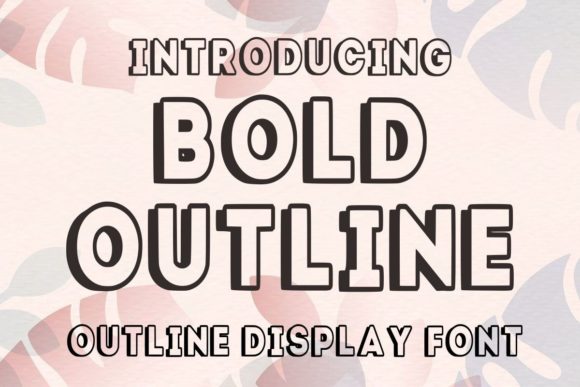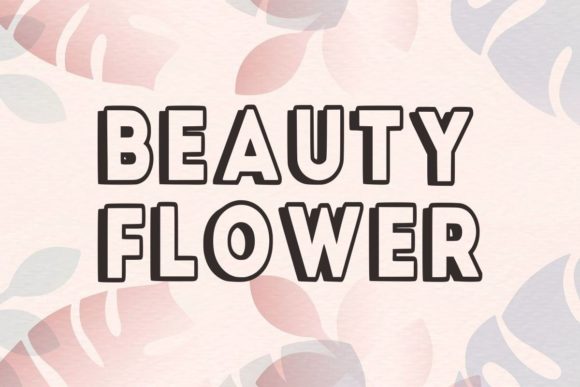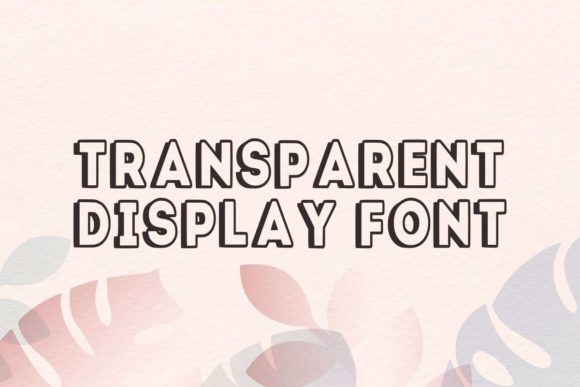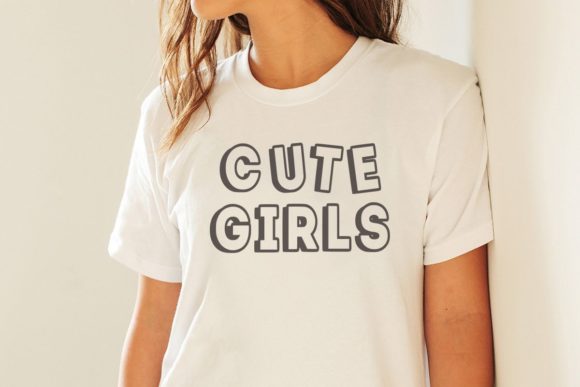
Bold Outline Font
About the Bold Outline Font
Add a touch of class to your work with the Bold Outline Font, a truly exceptional typeface. Bold Outline is an assertive and adaptable display font. It is easy-to-read and conveys impeccable friendliness. Whether you’re using it for crafts, digital design, presentations, or making greeting cards, this font has the potential to become your favorite go-to font.
Bold Outline excels in headline applications, short impactful phrases, and branding elements where a strong, friendly presence is desired. It works particularly well for posters, logos, and packaging designs needing a clear and confident message. Avoid using it for body text or lengthy paragraphs; its bold outline creates visual fatigue at smaller sizes.
Its inherent boldness pairs well with clean sans-serif fonts like Open Sans or Lato for a balanced contrast, providing readability for supporting text. For a more playful feel, consider pairing it with a rounded sans-serif or even a handwritten script font, but keep the script usage minimal to avoid overwhelming the headline’s impact.
The font’s personality is best described as bold, friendly, and approachable. It projects confidence without being aggressive, making it ideal for brands aiming for a memorable yet welcoming image.
Bold Outline Font Usage Examples
Bold Outline Font Example